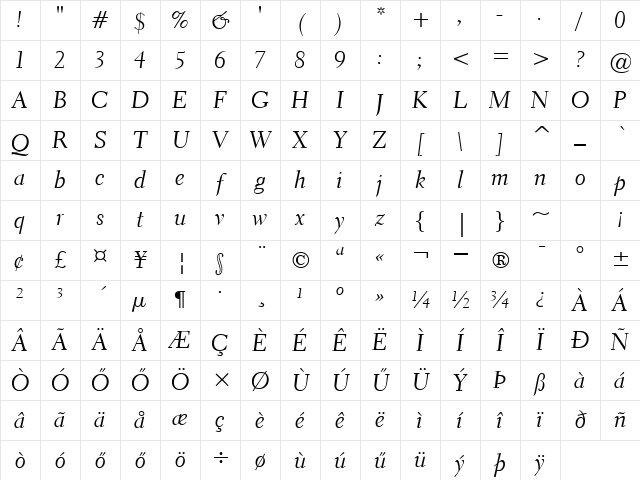
H_Transitional 521 BT Cursive
Style: Cursive
Design Context for H_Transitional 521 BT
H_Transitional 521 BT flows with the natural rhythm of handwritten lettering, making it ideal for designs that call for warmth and personal expression.
Font Pairing: Combine H_Transitional 521 BT with a simple geometric sans for maximum contrast - the tension between flowing curves and clean structure is a classic typographic pairing.
Pro Tip: Use H_Transitional 521 BT for short runs of text - names, titles, or taglines. Extended body copy in script faces tires the eye quickly.